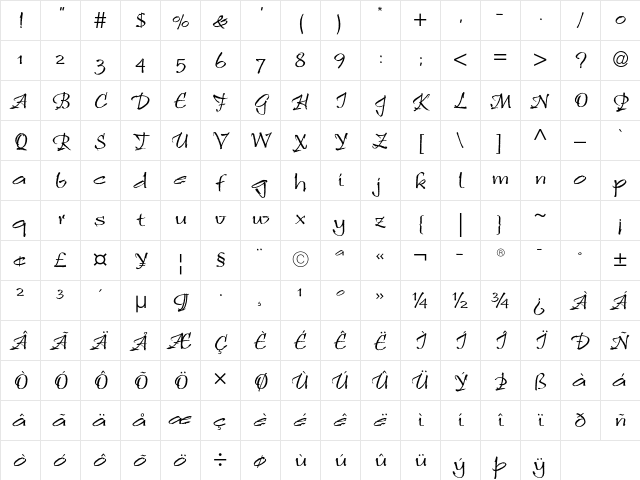
Ruling Script LT Std 2
Style: 2
Designer: Gottfried Pott
Design Context for Ruling Script LT Std
Ruling Script LT Std flows with the natural rhythm of handwritten lettering, making it ideal for designs that call for warmth and personal expression. Its slender proportions lend an understated elegance to any composition.
Font Pairing: Combine Ruling Script LT Std with a simple geometric sans for maximum contrast - the tension between flowing curves and clean structure is a classic typographic pairing.
Pro Tip: Use Ruling Script LT Std for short runs of text - names, titles, or taglines. Extended body copy in script faces tires the eye quickly.